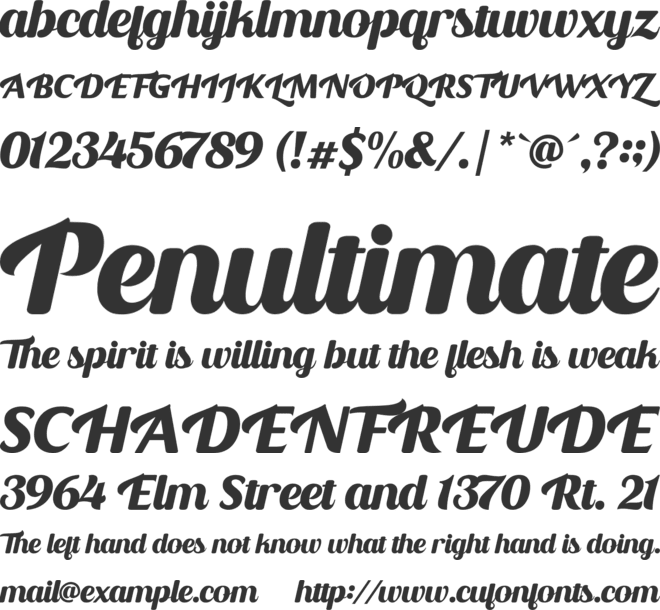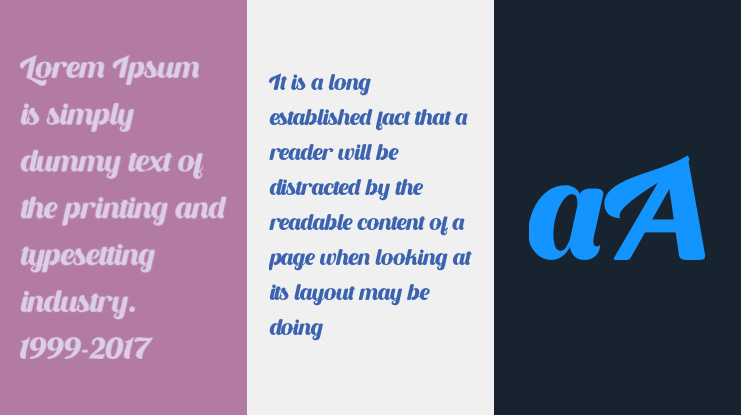
Otista Font
Otista is an elegant bold script font with retro look. Comes with 2 styles, clean and textured. Great for logotype, branding, packaging design, poster design, website/display, editorial, headline, advertising, and more..Whats Include?1. Opentype support2. Multilingual support3. PUA encoded4. Features: Uppercase, lowercase, numerals, punctuations, alternates, ligatures, and swashes5. Accessible in the Adobe Illustrator Glyphs panel, or under Stylistic Alternates in the Adobe Photoshop OpenType menu, Adobe InDesign, Corel Draw, even work on Microsoft Word6. TTF, OTF, and WOFF filesPlease message me if you’re unsure of any language support.Thanks for looking, and I hope you enjoy it! Please don’t hesitate to drop me a message if you have any issues or queries.https://omotustudio.com/product/otista/(Full version & commercial license)Official website: https://omotustudio.com/e-mail: Join telegram channel: https://t.me/omotustudio